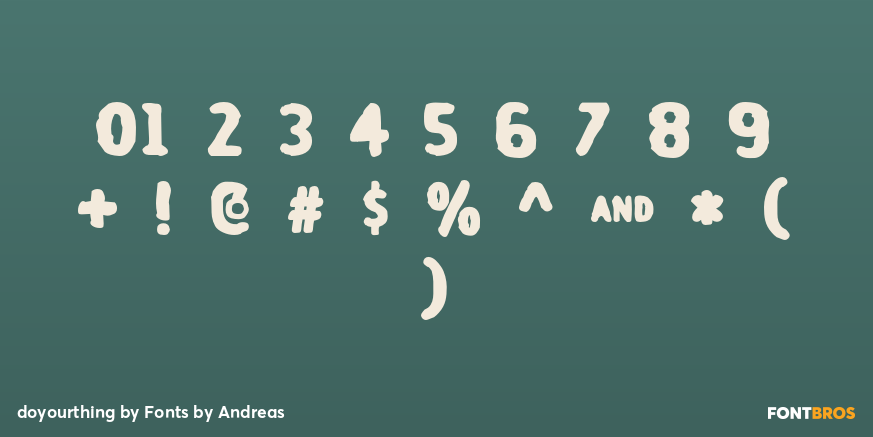
doyourthing
Font Family by Fonts by Andreas
doyourthing is a distressed sans serif with a raw, worn-in look that feels direct, casual, and full of character. Its roughened texture gives simple letterforms a more expressive voice, making it a strong choice when you want something that feels less polished and more lived-in.
With 1 included style, this family keeps things straightforward while delivering a distinctive display presence. It works especially well for posters, packaging, apparel graphics, branding, signage, and other design projects that benefit from a bold sans serif with a gritty edge.
Created by Fonts by Andreas, doyourthing brings together the clarity of sans serif structure and the visual energy of distressed detailing for work that needs impact without feeling overly refined.